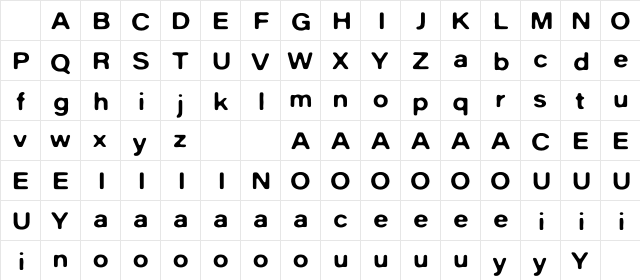
Complete Prickly Pair DEMO glyph index. Displaying only characters natively supported by Prickly Pair DEMO font.
Prickly Pair is a composed and adaptable typeface that performs quietly and consistently across a wide range of design contexts.